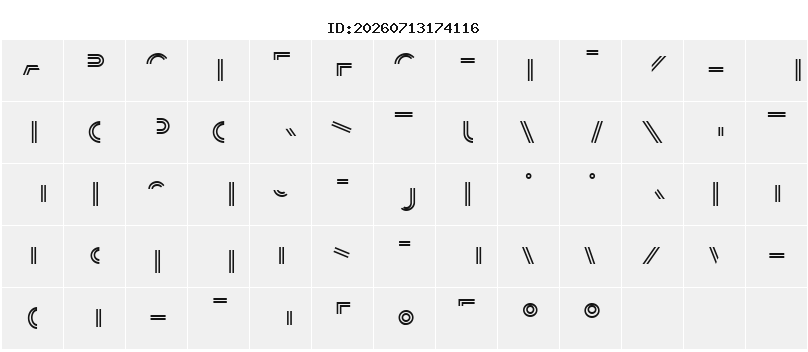
Balans Preview
• Font Name: Balans
• Font Style: Line
• Full Font Name: Balans-Line
• Designer: Thomas Breure
About Balans.ttf
Balans.ttf is a modern, elegant sans-serif font designed for ultimate readability and visual harmony. Perfect for branding, headlines, web design, and print materials.